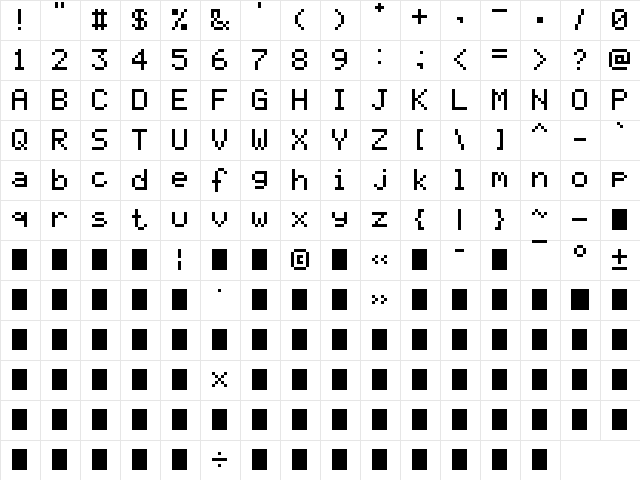
pixelmix Regular
| Foundry | Andrew Tyler |
| Designer | Andrew Tyler |
Design Context for pixelmix Typeface
pixelmix celebrates the constraints of early digital type, turning pixel geometry into a distinctive and immediately recognisable style.
A natural choice for retro game titles, chiptune music branding, 8-bit UI, and digital nostalgia projects.